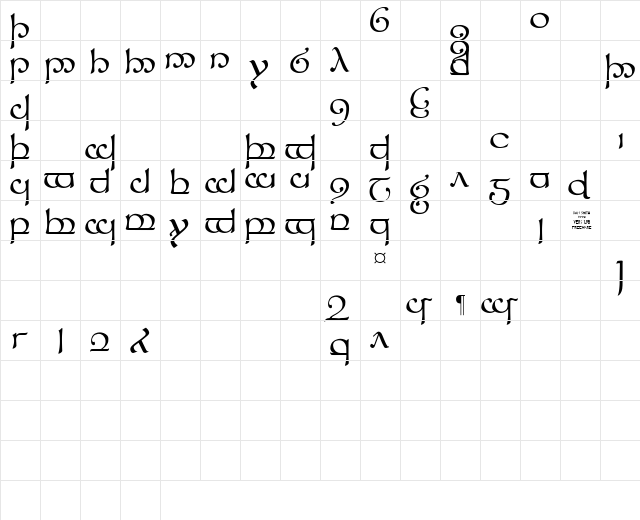
Tengwar Sindarin-1 Regular Font Preview
Tengwar Sindarin-1 Regular
Tengwar Sindarin-1 Regular Font Details
Design Context for Tengwar Sindarin-1 Typeface
Tengwar Sindarin-1 takes a measured approach to typography — its balanced proportions and neutral character make it a reliable workhorse for both digital and print work.